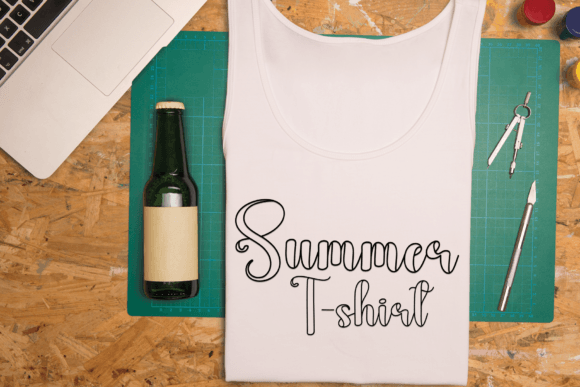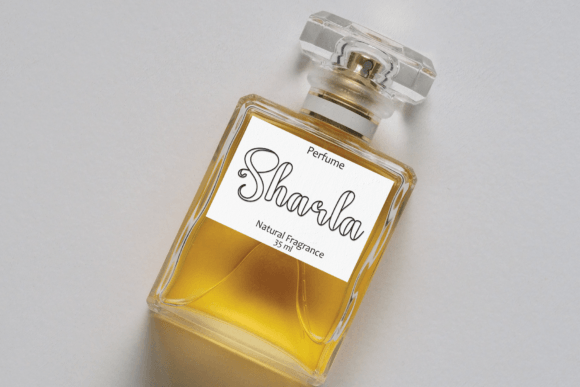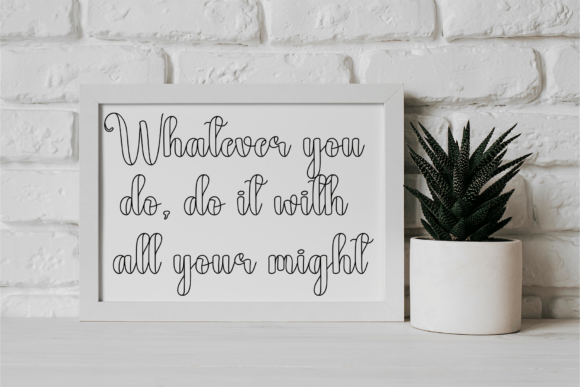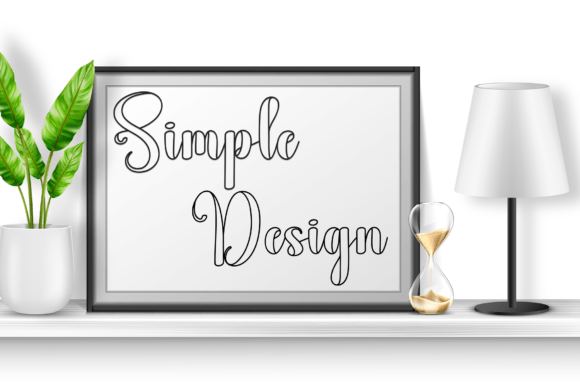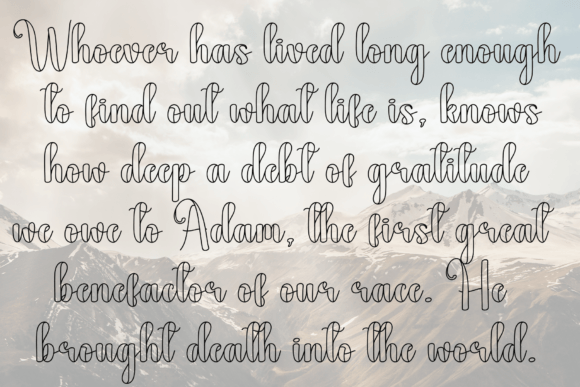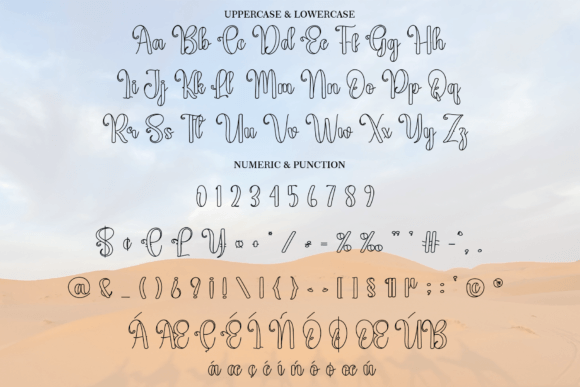
Have you ever stared at a blank page, trying to decide on the perfect font to capture the essence of your design? For many creatives, this moment of indecision can be a daunting task. But what if you could find a font that effortlessly conveys a sense of warmth and friendliness, perfect for adding a personal touch to your work?
Enter the Camel Font, a sweet and endearing handwritten font that’s ideal for writing wedding invitations, cards, and any other design that requires a lovely, casual feel. This versatile font is a valuable asset for designers, offering a unique and eye-catching way to express their creativity and connect with their audience. Whether you’re a seasoned pro or just starting out, the Camel Font is sure to inspire your next design project.
Camel Font Key Features
- Unique Characteristic: Camel Font features a unique blend of modern and traditional design elements, making it suitable for various design projects.
- Font Style: Available in Regular, Italic, Bold, and Bold Italic styles, providing flexibility for designers and typographers.
Camel Font Review
Overall, I’d say the Camel Font has some great qualities, but also some limitations that make it less suitable for certain projects.
- Unique and eye-catching design: The Camel Font has a distinctive, hand-drawn feel that can add a touch of personality to your designs.
- Good for creative projects: Its playful, whimsical style makes it perfect for projects that require a creative or artistic tone.
- Limited versatility: While great for creative projects, the Camel Font may not be the best choice for more formal or professional designs.
- Readability issues: Some users may find the font’s irregular letterforms challenging to read, particularly at smaller font sizes.
- Not suitable for body text: Due to its unique style and irregular spacing, the Camel Font is best used for headlines or titles rather than body text.
In conclusion, the Camel Font is a great choice for creative projects that require a unique and eye-catching design. However, it may not be the best fit for more formal or professional projects where readability and versatility are key.
The Camel Font is a versatile font that can be used in a variety of contexts. Some common use cases include:
- Logo design: The Camel Font can be used to create a unique and memorable logo for your brand.
- Typography: The Camel Font can be used to add a touch of elegance and sophistication to your typography.
- Branding: The Camel Font can be used to create a consistent brand identity across all your marketing materials.
Some tips for getting the most out of the Camel Font include:
- Use the Camel Font in combination with other fonts to create a unique and eye-catching design.
- Pay attention to font pairing and make sure the Camel Font is paired with fonts that complement its unique style.